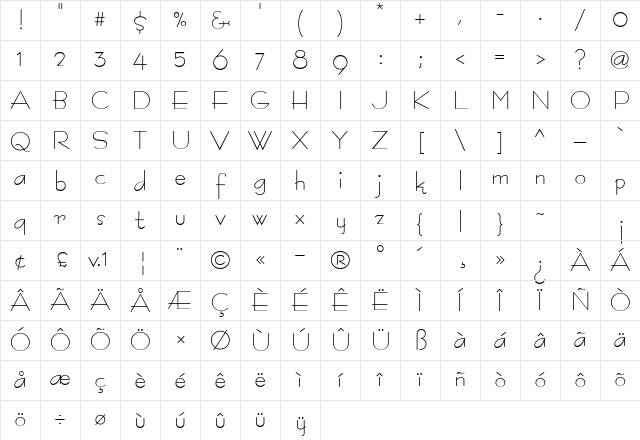
BernhardFashionHmk Regular
Design Context for BernhardFashionHmk
BernhardFashionHmk is a composed and adaptable typeface that performs quietly and consistently across a wide range of design contexts.